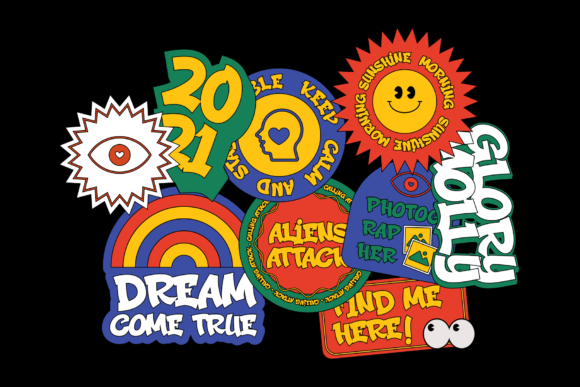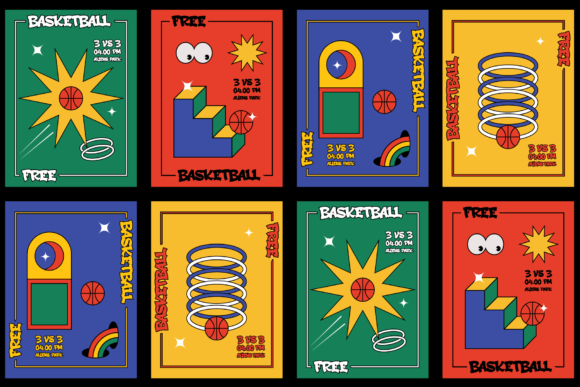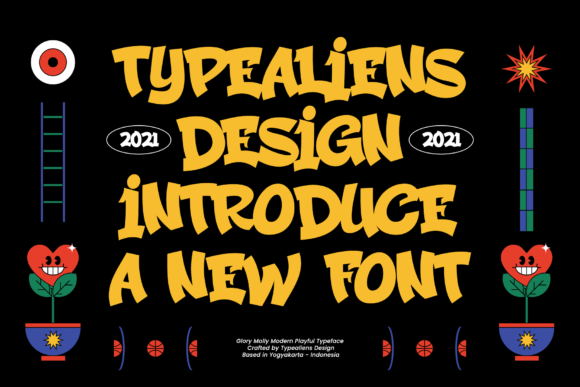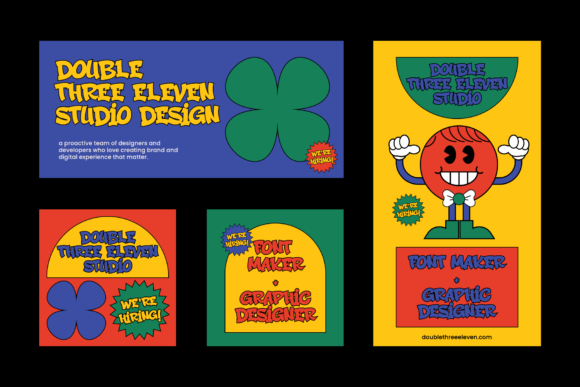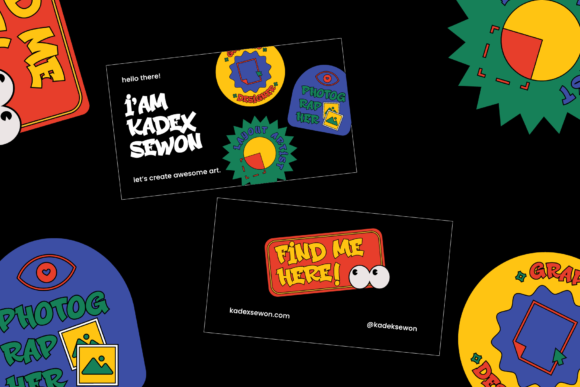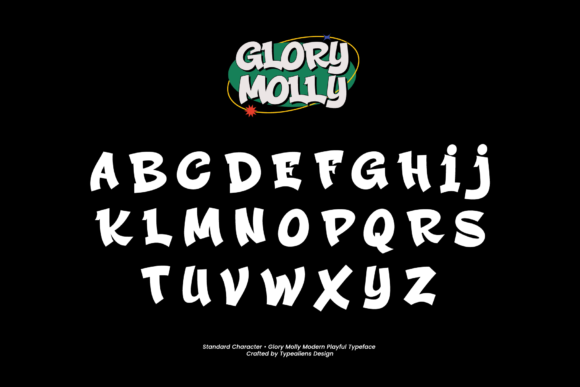
Introducing Glory Molly Font: The Ultimate Display Typeface for Creative Projects
Are you tired of using the same old fonts in your designs? Look no further! Glory Molly Font is here to revolutionize your creative projects with its unique and playful display typeface. Crafted to perfection, Glory Molly is the perfect addition to any design, helping you to create outstanding work that stands out from the crowd.
What Makes Glory Molly Font So Special?
Glory Molly Font is a one-of-a-kind display typeface that boasts a distinctive and eye-catching style. Its playful and whimsical design makes it perfect for a wide range of creative projects, from branding and advertising to packaging and digital media. Whether you’re a designer, craftsperson, or simply a DIY enthusiast, Glory Molly Font is sure to inspire your next project.
Key Features of Glory Molly Font
- Unique and Playful Design: Glory Molly Font features a distinctive and playful design that’s sure to grab attention.
- Display Typeface: Perfect for headlines, titles, and short text passages, Glory Molly Font is designed to make a statement.
- Highly Versatile: Use Glory Molly Font in a wide range of creative projects, from digital media to print materials.
- Easily Readable: Despite its playful design, Glory Molly Font is highly readable, making it perfect for use in a variety of contexts.
Tips and Tricks for Getting the Most Out of Glory Molly Font
- Experiment with Different Sizes and Colors: Glory Molly Font looks great in a variety of sizes and colors, so don’t be afraid to experiment and find the perfect combination for your design.
- Use it as a Headline Font: Glory Molly Font is perfect for use as a headline font, but you can also use it for body text and other design elements.
- Combine it with Other Fonts: Glory Molly Font pairs well with a variety of other fonts, so feel free to get creative and experiment with different font combinations.
Why Designers and Crafters Love Glory Molly Font
Glory Molly Font has quickly become a favorite among designers and crafters, and for good reason. Its unique and playful design makes it perfect for a wide range of creative projects, from branding and advertising to packaging and digital media. Whether you’re looking to add a touch of whimsy to your designs or simply want to create something truly unique, Glory Molly Font is the perfect choice.
In conclusion, Glory Molly Font is a unique and playful display typeface that’s perfect for any creative project. With its highly versatile design, ease of use, and endless possibilities for customization, Glory Molly Font is sure to become a staple in any designer’s toolkit. So why wait? Download Glory Molly Font today and start creating outstanding work that stands out from the crowd!